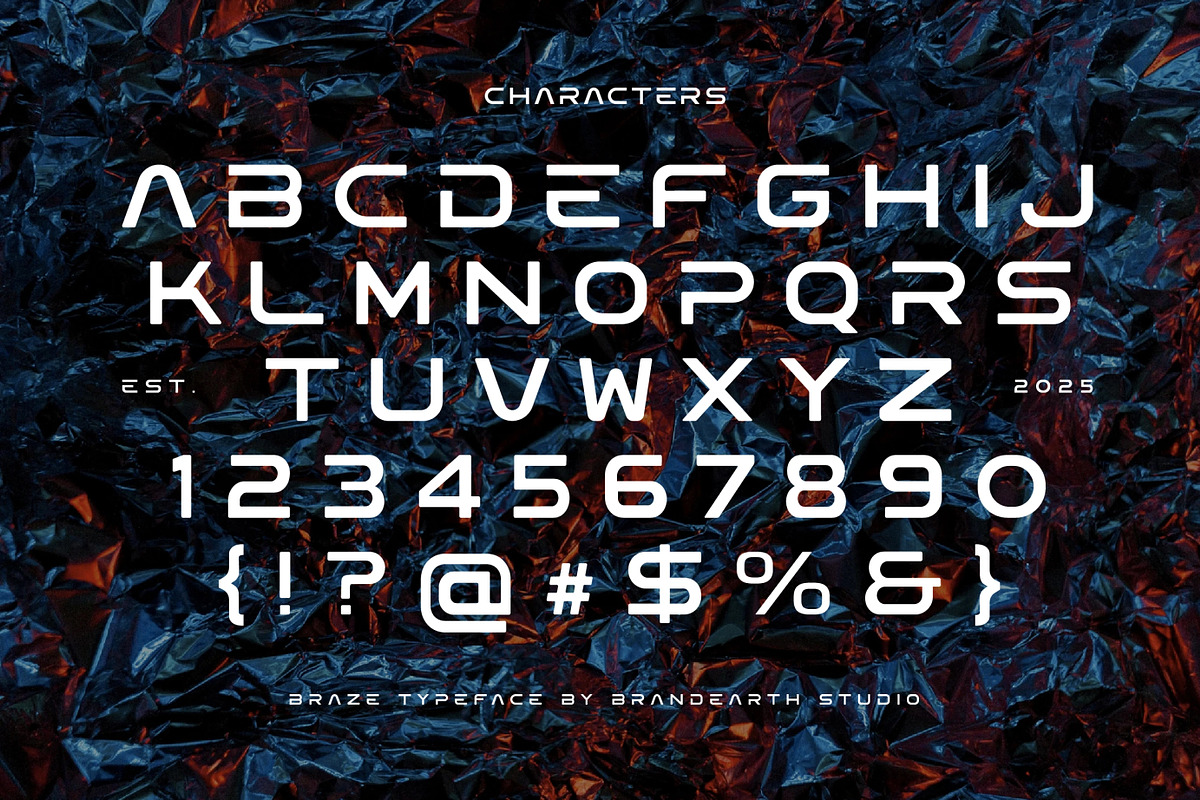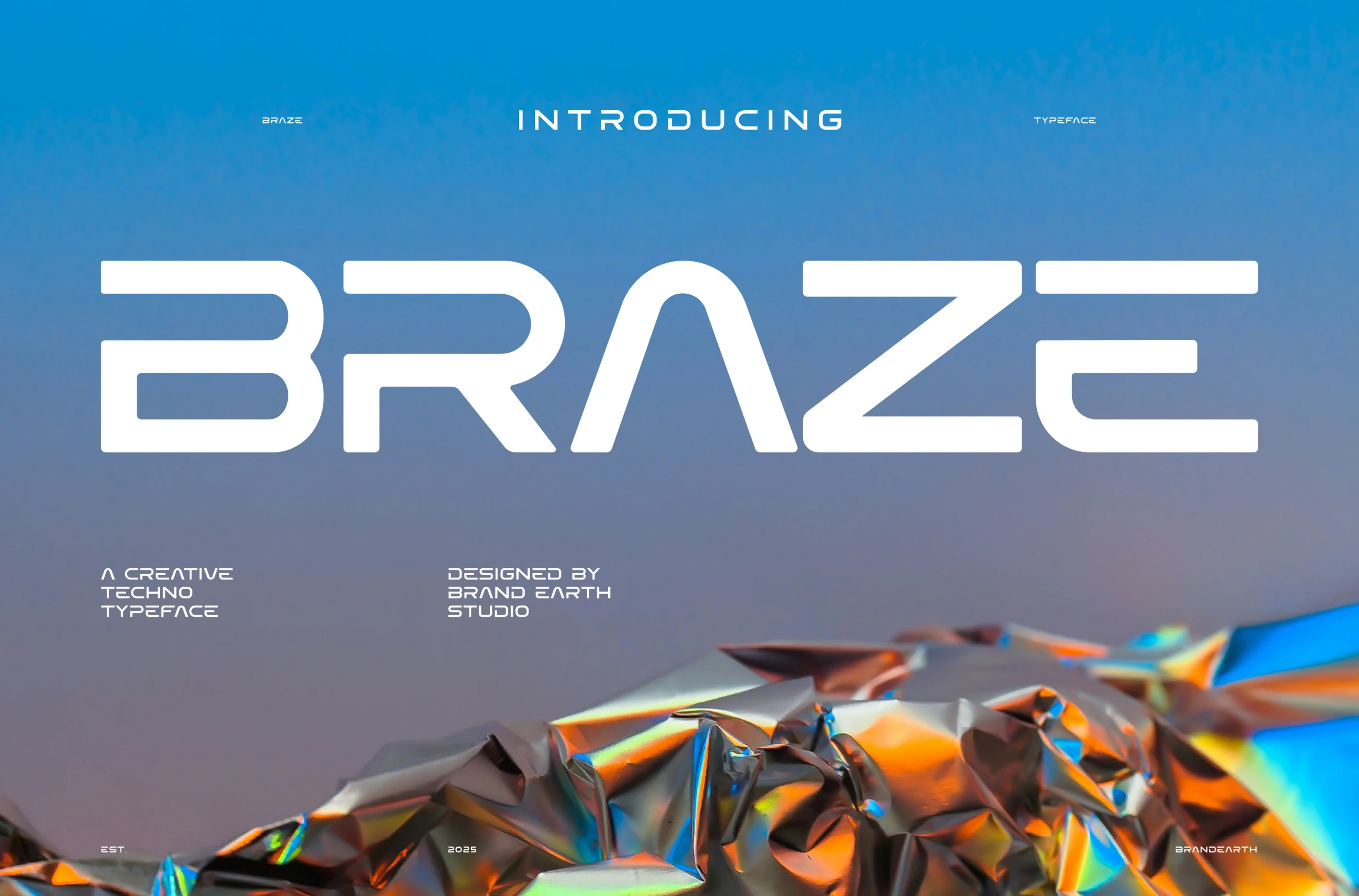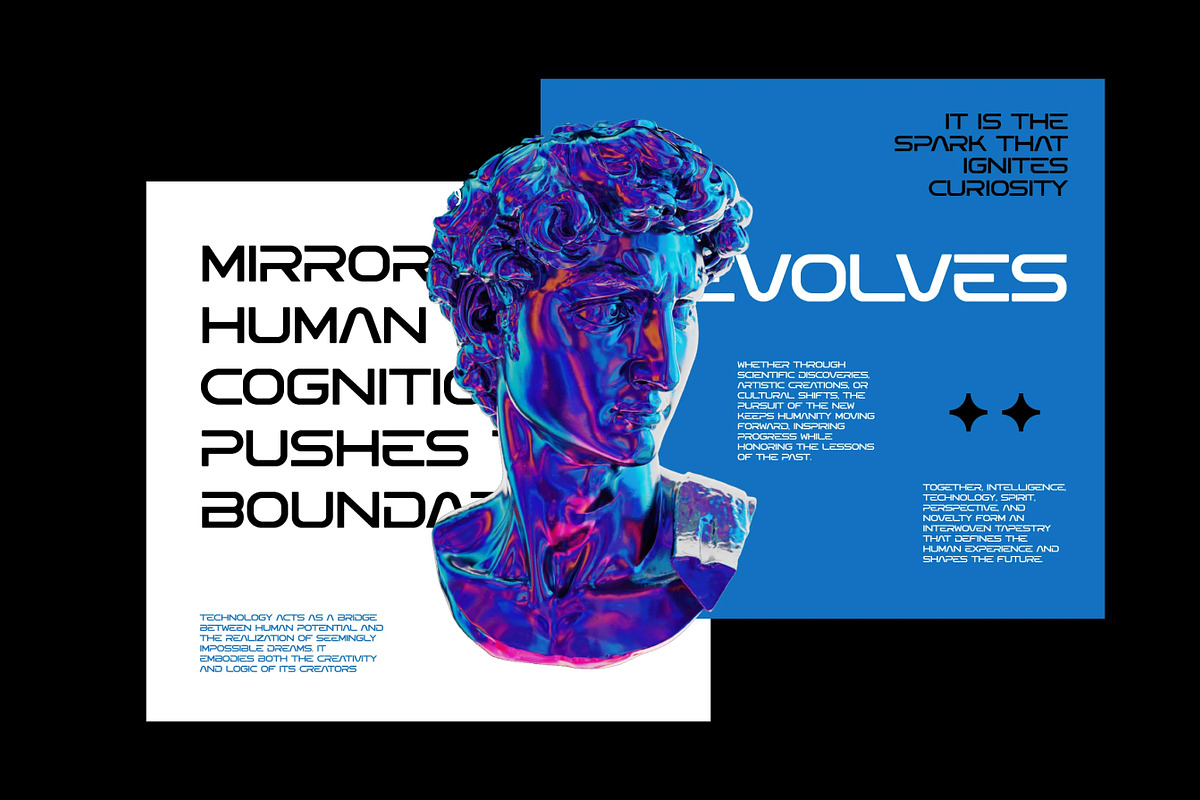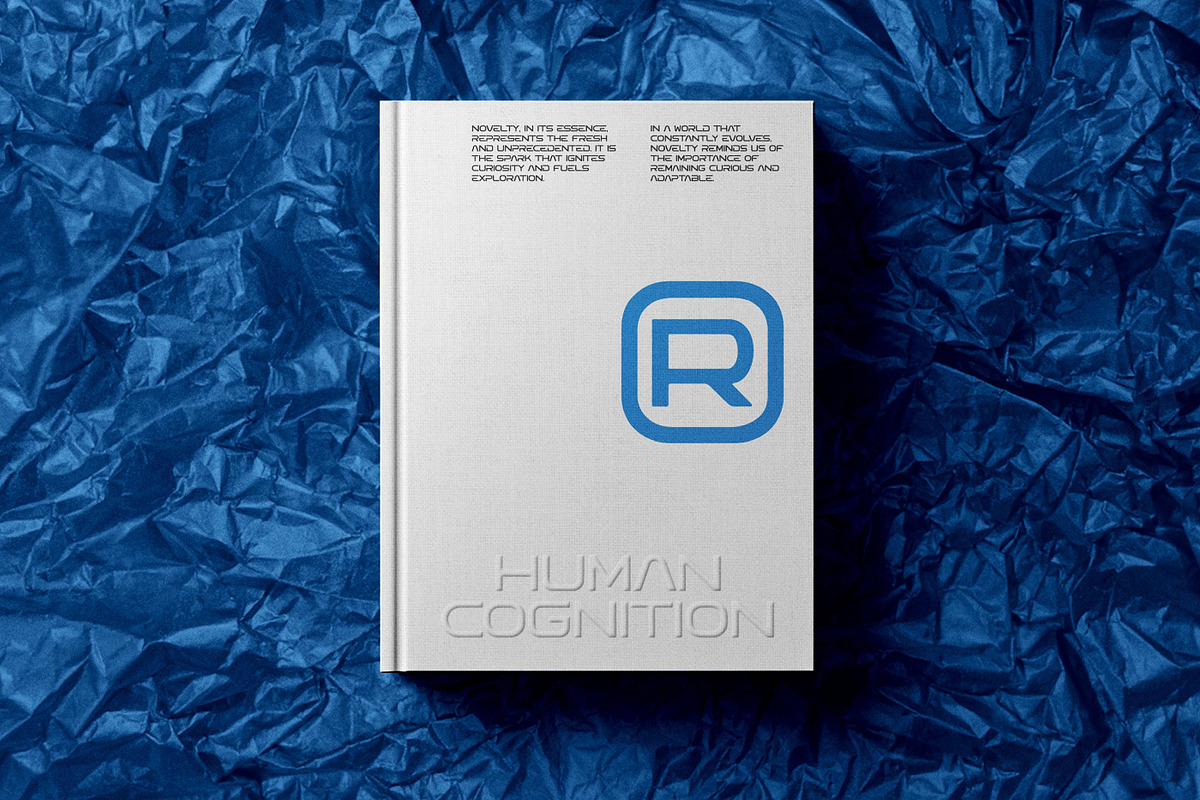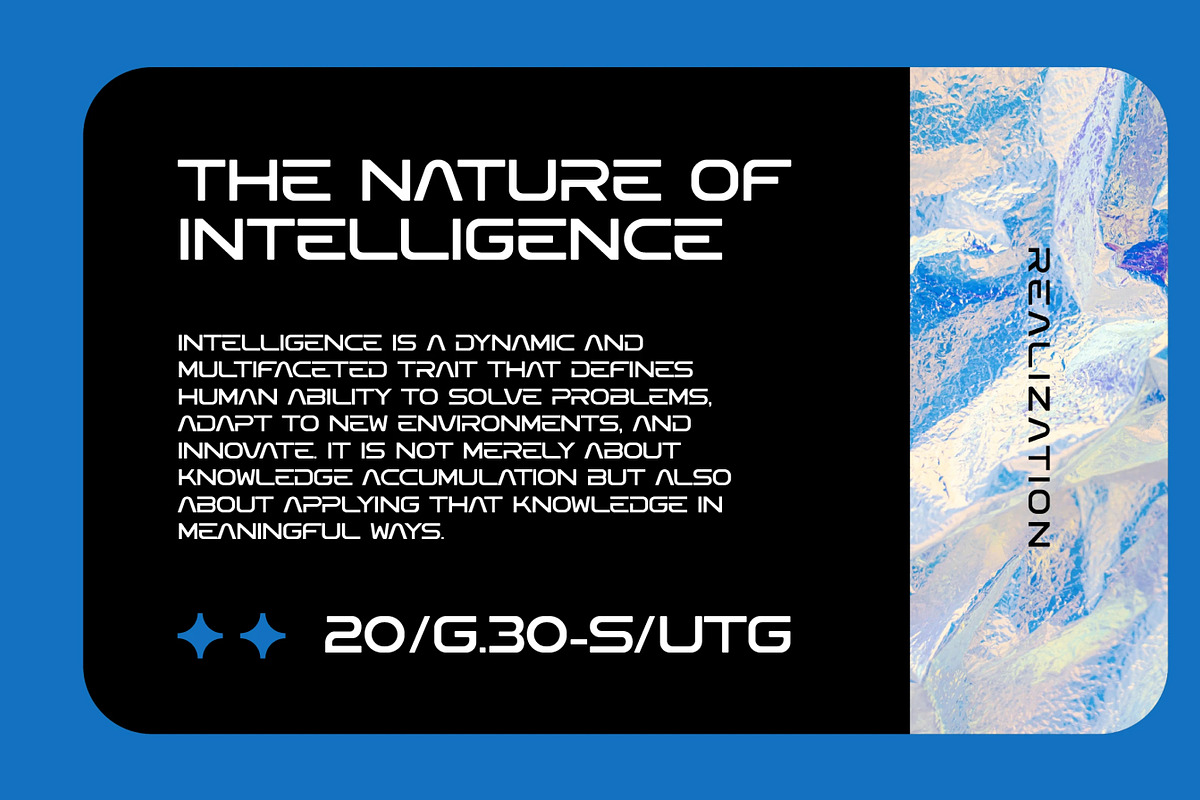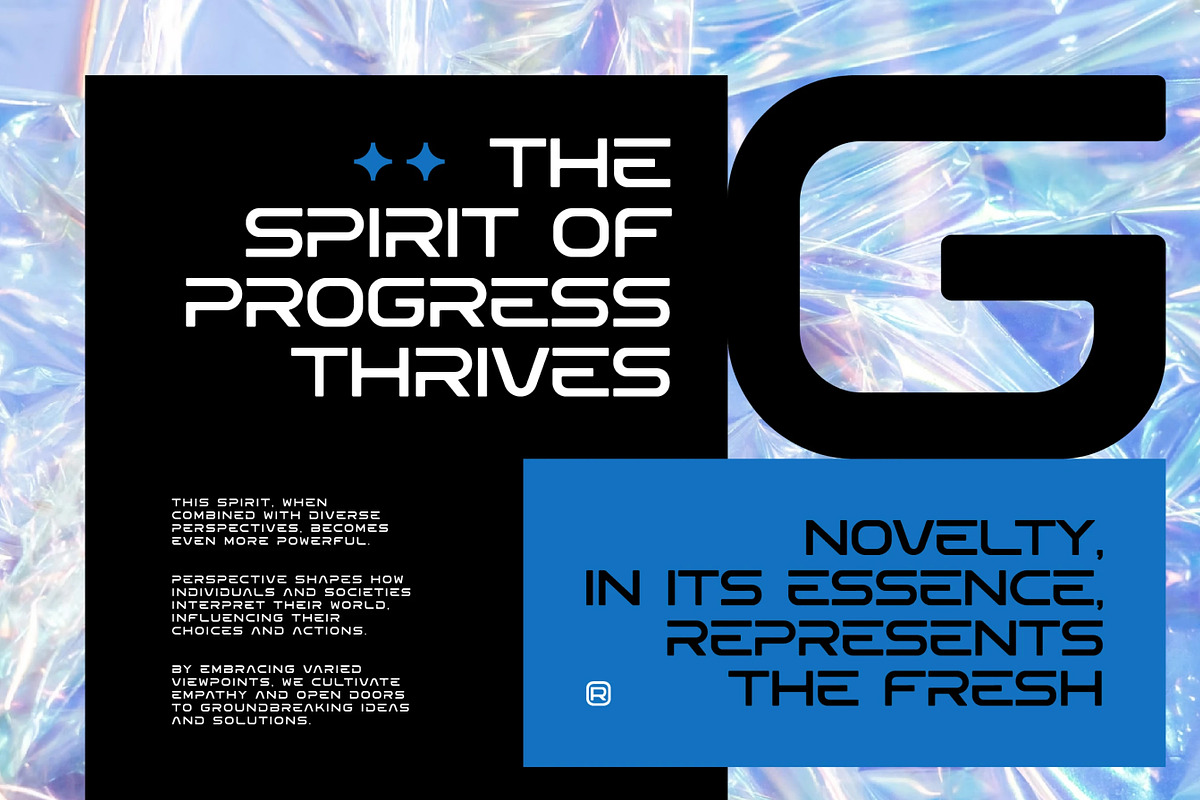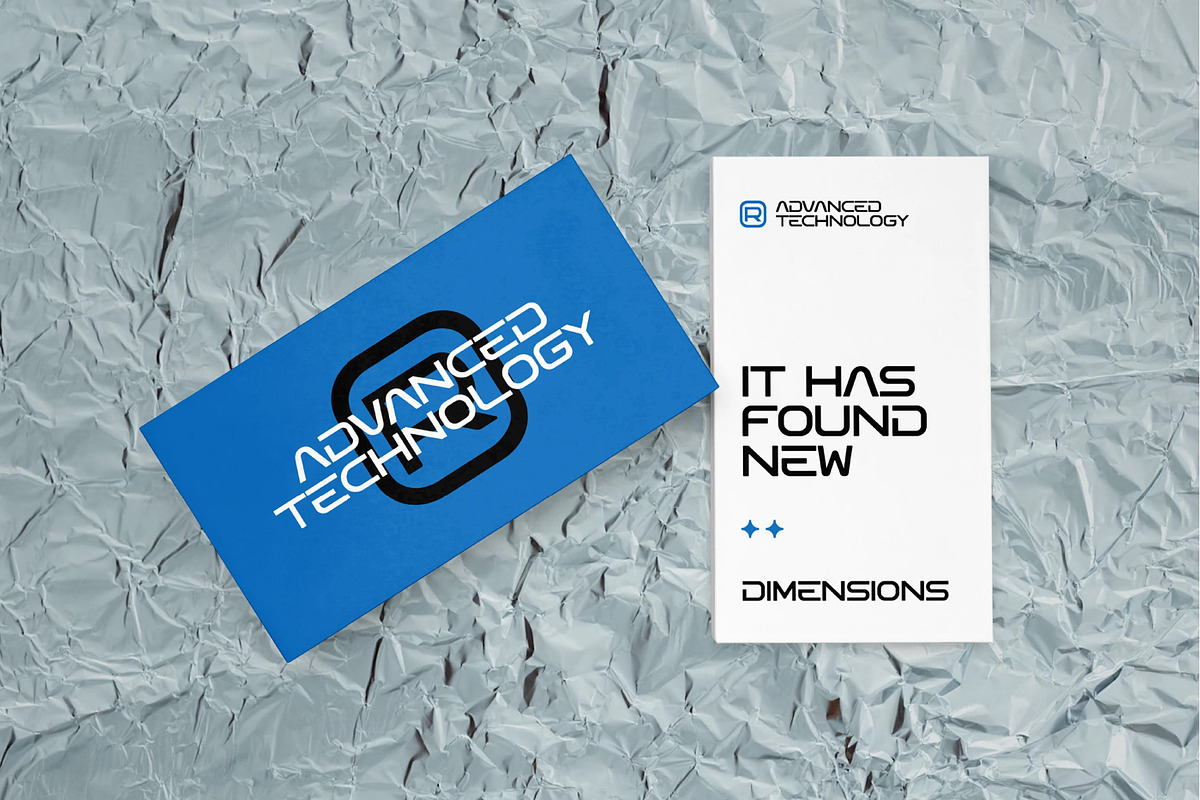
Braze - Modern Techno Display Font
Braze is a modern techno display font that blends sleek, geometric lines with a bold digital aesthetic. Its angular forms and rounded terminals create a striking balance between sharpness and softness, making it ideal for designs that push visual boundaries. Whether shaping a sci-fi interface, an experimental brand, or a cyberpunk poster, Braze delivers strong visual impact with a confident, contemporary edge.
The letterforms in Braze are built with tight geometric precision and a consistent modular rhythm, giving the typeface a clean, high-tech character. This structural clarity makes it especially well-suited for tech branding, gaming logos, and futuristic interfaces that need to feel sharp, commanding, and unmistakably modern.
With its bold weight and digital-forward styling, Braze bridges the gap between raw technological energy and refined display typography. It brings a high-impact, forward-looking tone to any project, making it ideal for NFT visuals, music cover art, and motion graphics.
Suitable For: technology branding, futuristic interfaces, cyberpunk visuals, sci-fi branding, digital event posters, techwear packaging, robotic or AI-based UI design, music cover art, corporate innovation brands, startup launch decks, video game logos, and motion graphics.